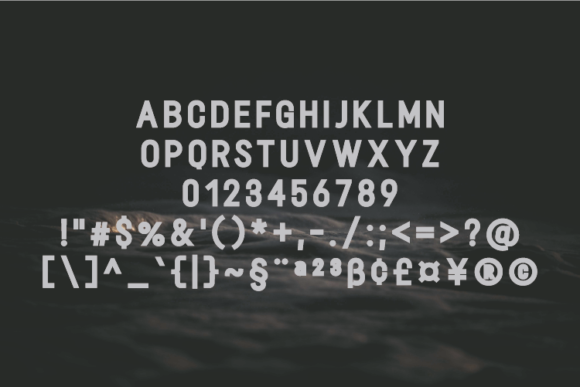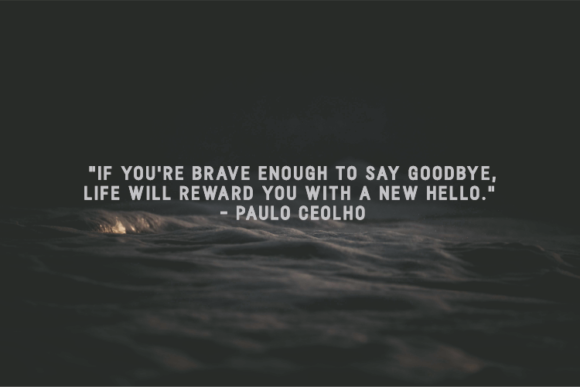
Introduction to Modefun Font
Have you ever stared at a blank canvas, trying to bring your creative vision to life? You’ve poured over design inspiration, researched the perfect color palette, and experimented with different fonts – only to find the perfect combination still eludes you. It’s in these moments of frustration that a game-changing design resource can make all the difference.
Enter the Modefun Font, a high-quality sans serif font that’s about to revolutionize the way you approach your creative projects. With its clean lines, minimalist aesthetic, and versatility, this font is the ultimate design companion for anyone looking to elevate their work.
Key Features of Modefun Font
- High-quality design: Modefun Font offers a unique blend of modern and fun elements, perfect for creative projects that require a playful touch.
- Unique characteristics: Modefun Font features a distinctive, hand-drawn feel that sets it apart from more generic fonts, making it an excellent choice for designers looking to add some personality to their work.
- Perfect for creative projects: Modefun Font is ideal for use in creative projects, such as logos, branding materials, and marketing materials, where a fun and playful touch is desired.
Honest Review: Modefun Font
I recently had the chance to work with the Modefun Font, and I must say it’s been a delightful addition to my design resource collection. With its high quality and free download option, it’s no wonder this font has gained popularity among designers.
One of the standout features of the Modefun Font is its versatility. The font is available in various styles, from bold and playful to elegant and sophisticated, making it a perfect fit for any creative project. ✨ I particularly love the transparent background option, which allows for seamless integration with any design element.
- Wide range of styles
Overall, I’m thoroughly impressed with the Modefun Font. Its unique blend of style and functionality makes it an excellent addition to any designer’s toolkit. With a few tweaks to address the limitations, this font has the potential to become a go-to resource for designers worldwide.
Getting the Most Out of Modefun Font
To get the most out of the Modefun Font, consider the following tips:
- Combine the Modefun Font with other design resources to create unique and creative projects.
The Modefun Font is perfect for various creative projects, including:
- Digital art and graphics
- Print materials, such as business cards and brochures